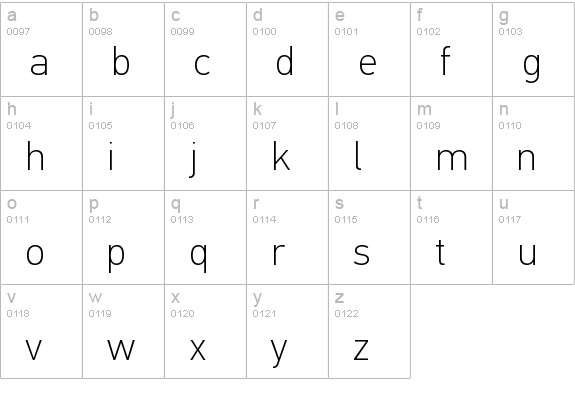
PFDinTextPro-Thin is a delicate, low-contrast variant in the PFDinTextPro typeface family \xE2\x80\x94 well suited to fashion editorial, minimal branding, and high-contrast display.
PFDinTextPro-Thin font is a sleek and modern typeface that exudes elegance and sophistication. With its slender letterforms and clean lines, this font is perfect for creating a minimalist and contemporary look in your designs. Whether you're working on branding, editorial projects, or web design, PFDinTextPro-Thin will add a touch of refinement to your work. The best part? PFDinTextPro-Thin is available for free download at FontsMarket.com. This means you can easily access this high-quality font without any cost, making it a valuable addition to your font library. Don't miss out on the opportunity to enhance your projects with the sophisticated charm of PFDinTextPro-Thin font. Download it today and elevate your designs to the next level.